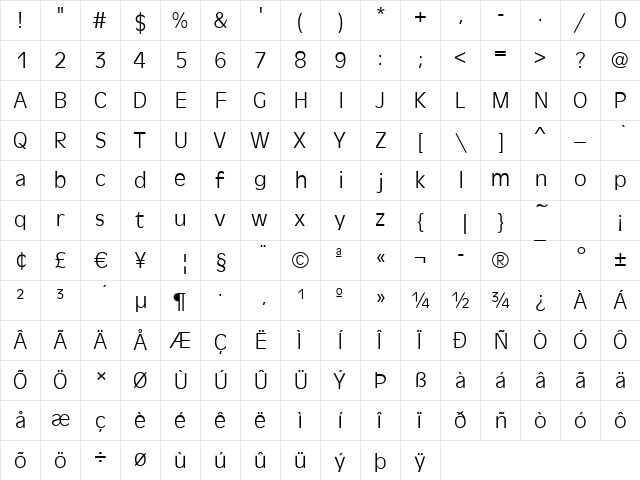
Antigone-Light Regular
Design Context for Antigone-Light Typeface
Antigone-Light offers clean, dependable letterforms without strong stylistic allegiance, making it a practical choice for designers who need flexibility. The delicate stroke weight brings airiness and refinement to layouts.
Pro Tip: Use Antigone-Light in both headline and body roles to test its range before committing to a single application.